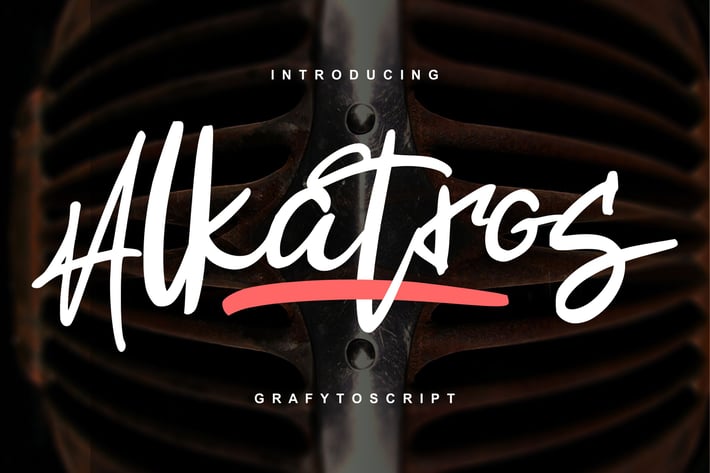
Alkatros | Grafyto Script Font
Alkatros | Grafyto Script Font with a calligraphy style, So beautiful on invitation like greeting cards, branding materials, business cards, quotes, posters, and more!